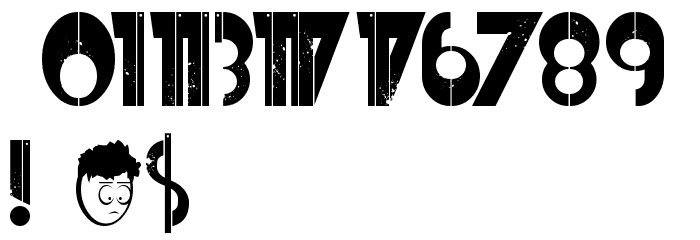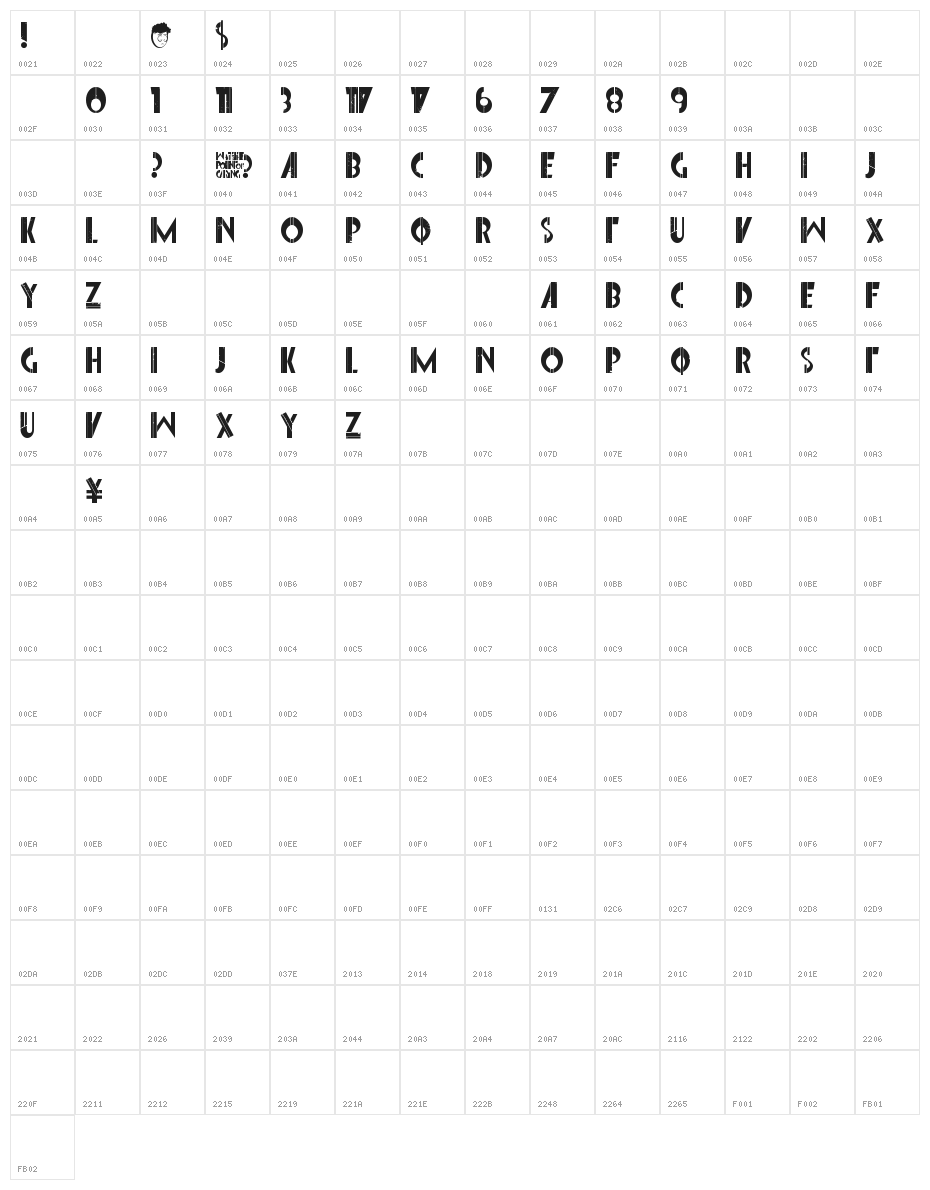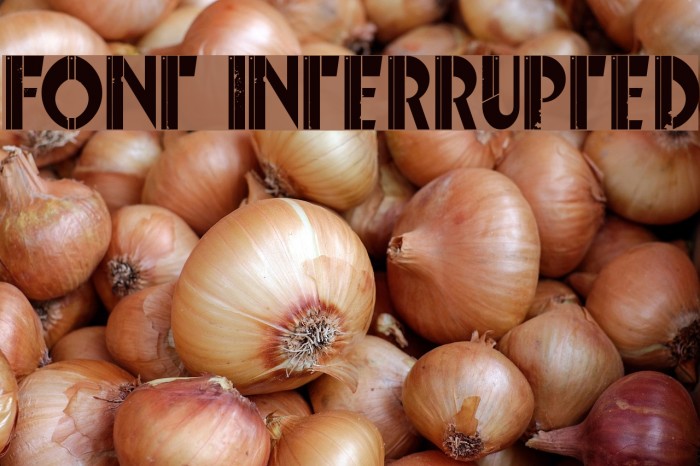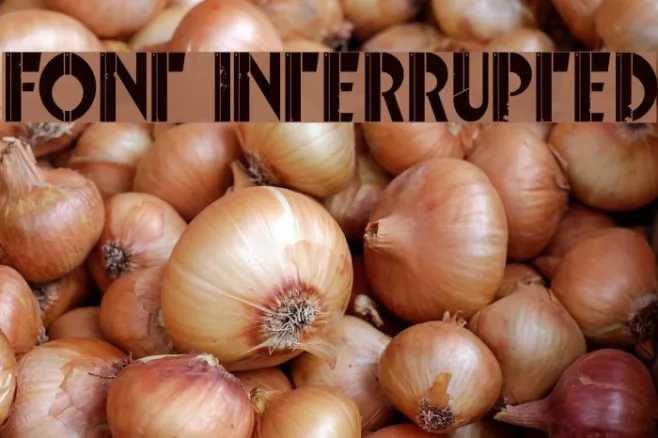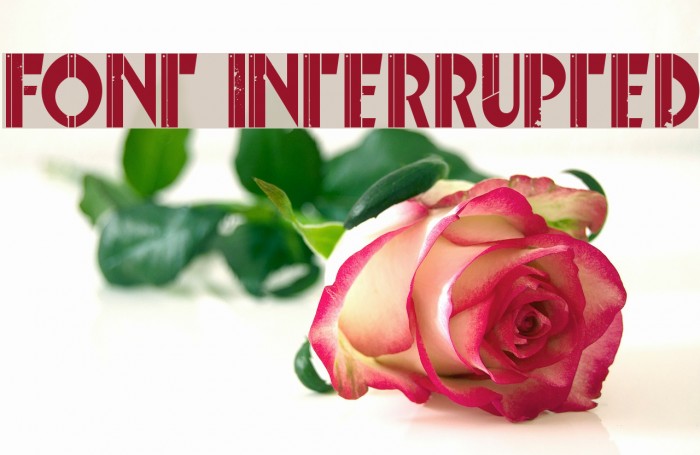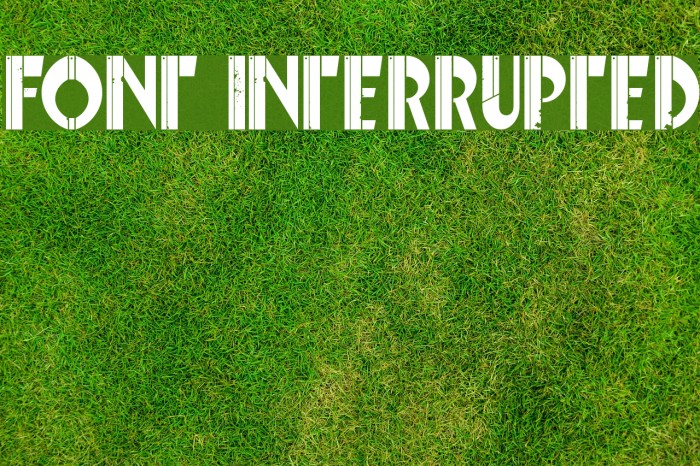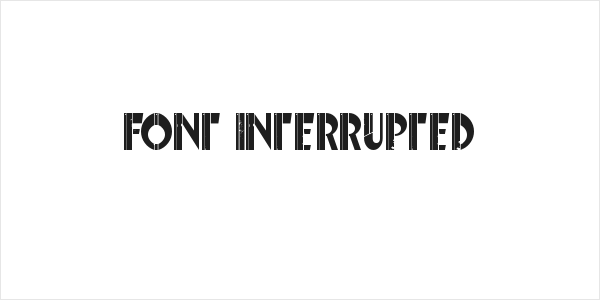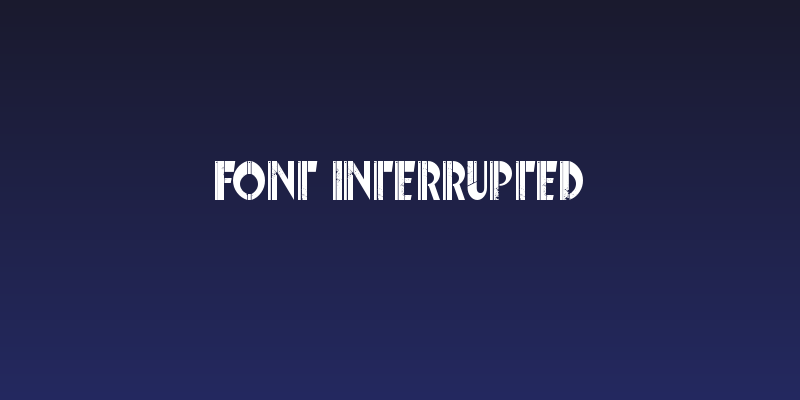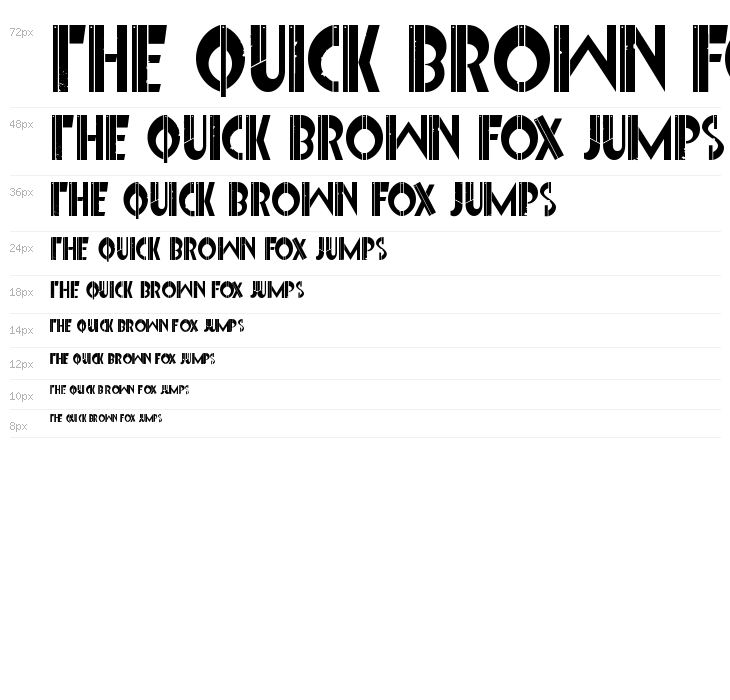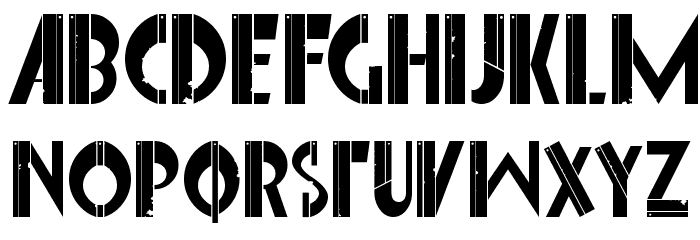
Font Interrupted Font
Font Interrupted Description
This font features a bold and striking design with a distressed, grunge-like texture. The characters are constructed with thick, geometric shapes that give a sense of strength and modernity. The distressed effect adds a vintage or worn-out feel, making it ideal for projects that require an edgy or rebellious aesthetic. The uppercase letters are particularly prominent, with sharp angles and a consistent height, while the numbers and special characters maintain the same bold style. The font's unique appearance makes it stand out, perfect for eye-catching headlines or artistic designs.
| Overall Style | Modern, Vintage |
| Proposed Projects | Ideal for album covers, posters, branding for edgy products, or any design needing a bold statement. |